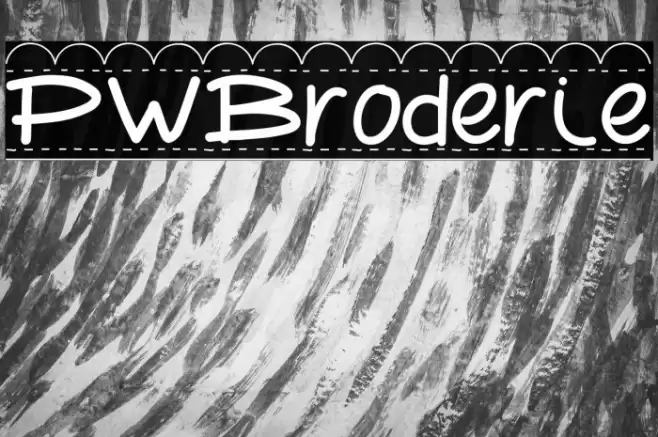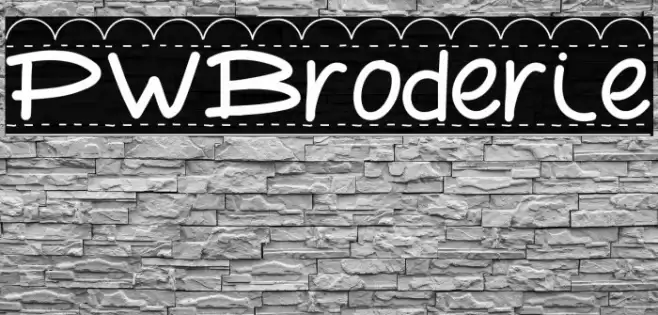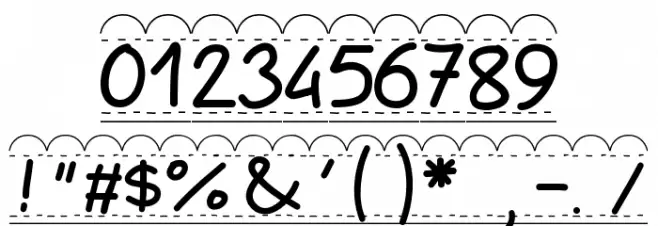
PWBroderie Font
PWBroderie Description
This font features a playful and whimsical style, characterized by its rounded and slightly irregular letterforms. The uppercase letters are bold and prominent, while the lowercase letters maintain a consistent flow with a touch of casual elegance. The numerals are clear and easy to read, complementing the overall design. Special characters are creatively integrated, maintaining the font's unique personality. The dotted lines and scalloped edges add a decorative touch, reminiscent of embroidery patterns, enhancing its charm and appeal.
A playful, whimsical font with rounded, irregular letterforms and decorative elements from Uncategorized fonts.
- Proposed Projects: Ideal for children's books, playful branding, greeting cards, and creative crafts.
- Overall Style: Playful, Whimsical, Decorative
- Use Case: Headlines, Logos, Creative projects